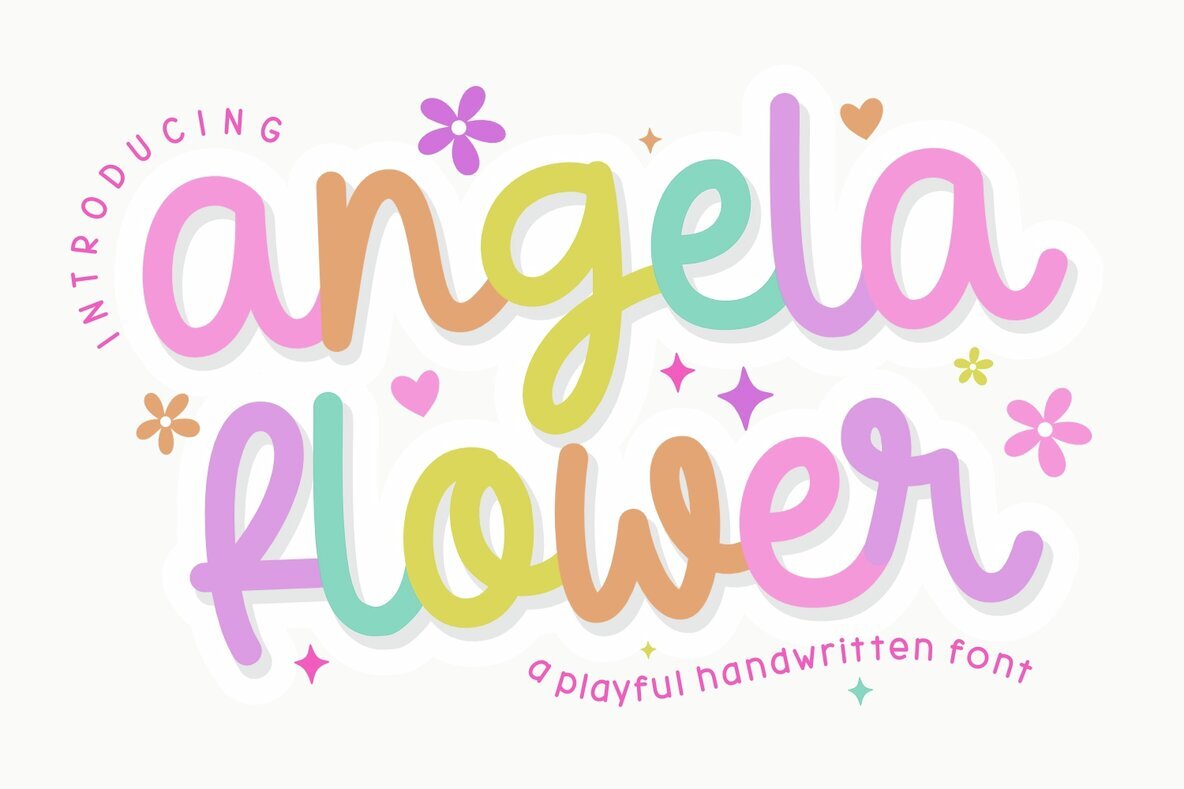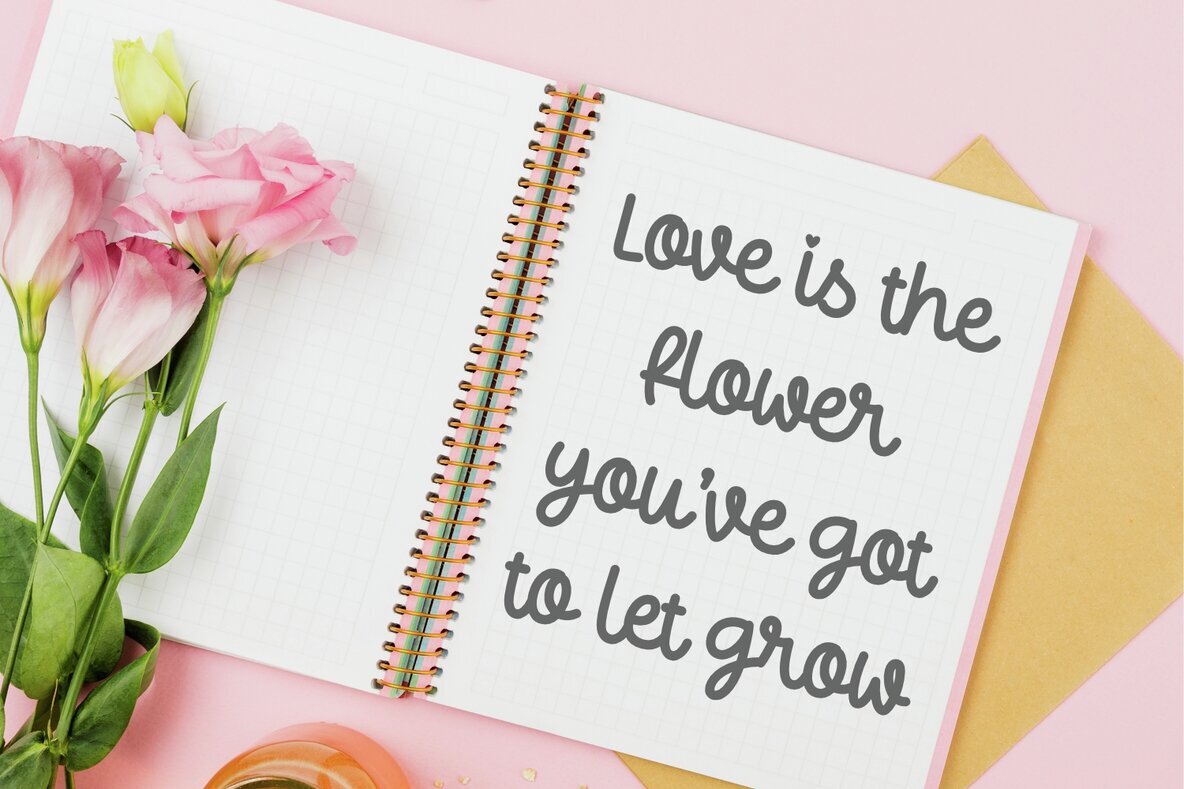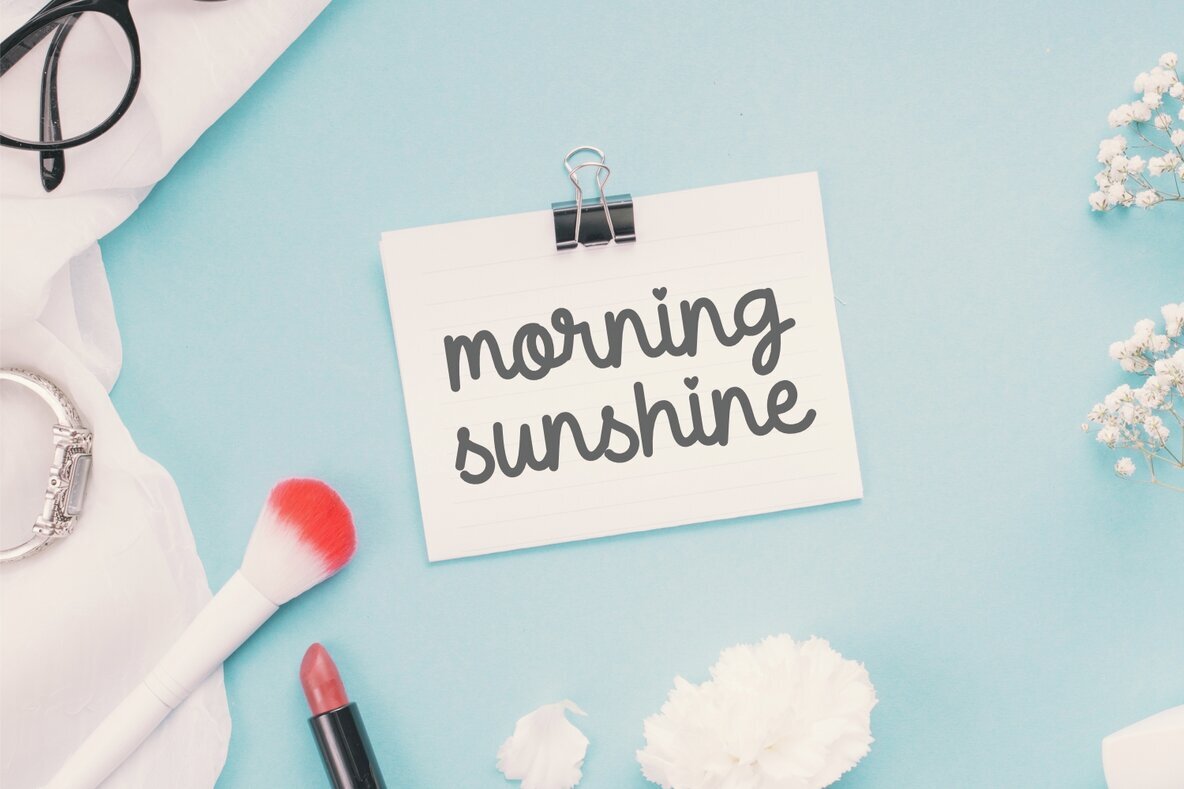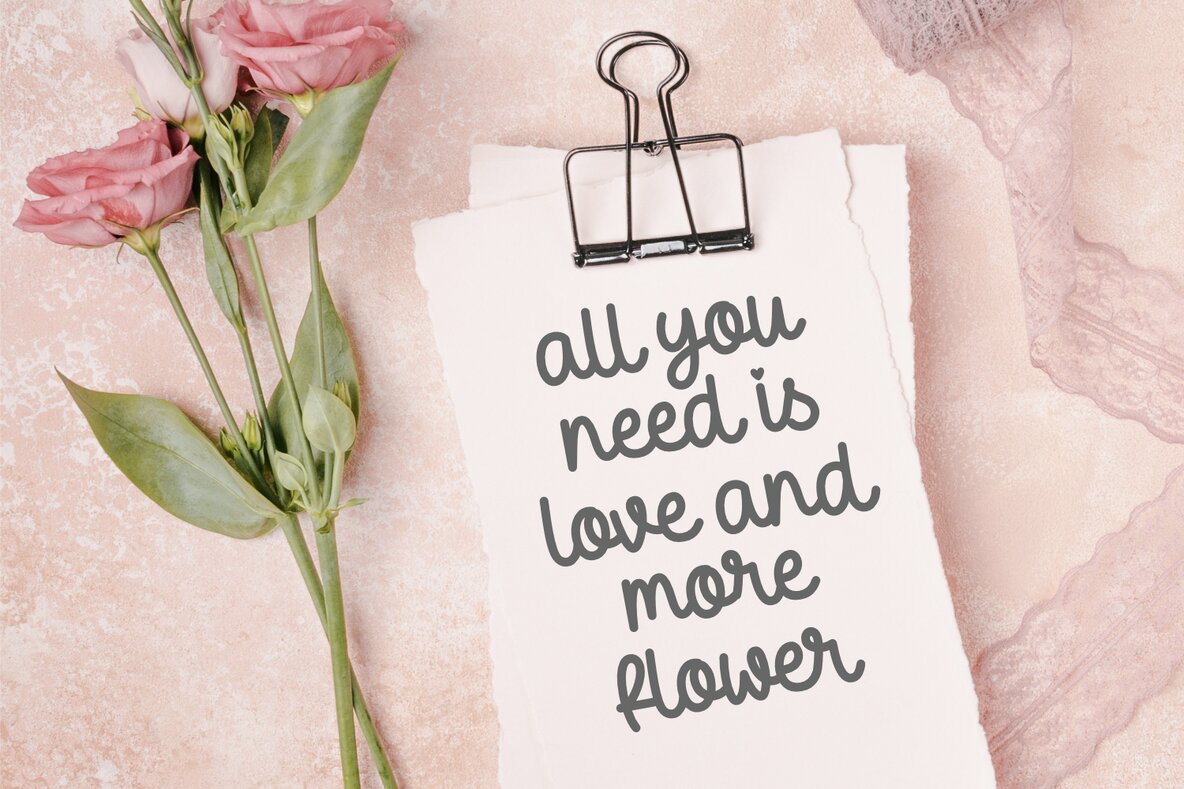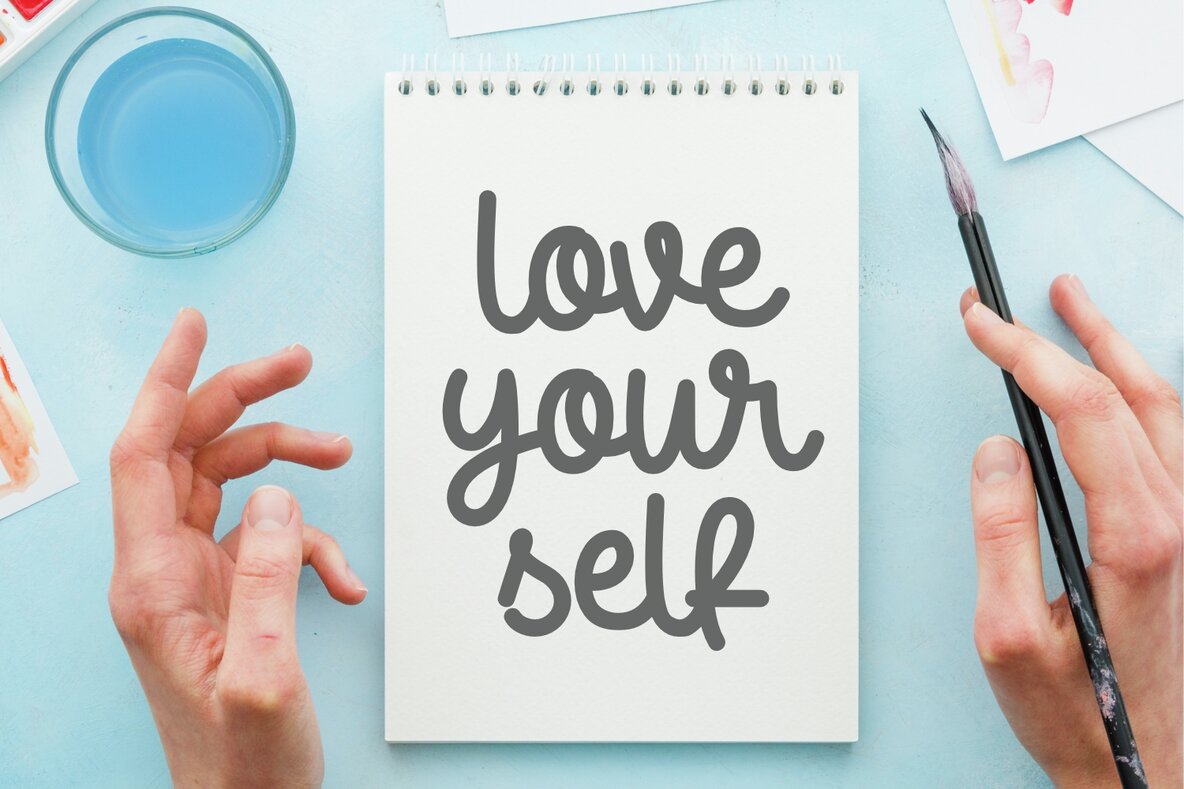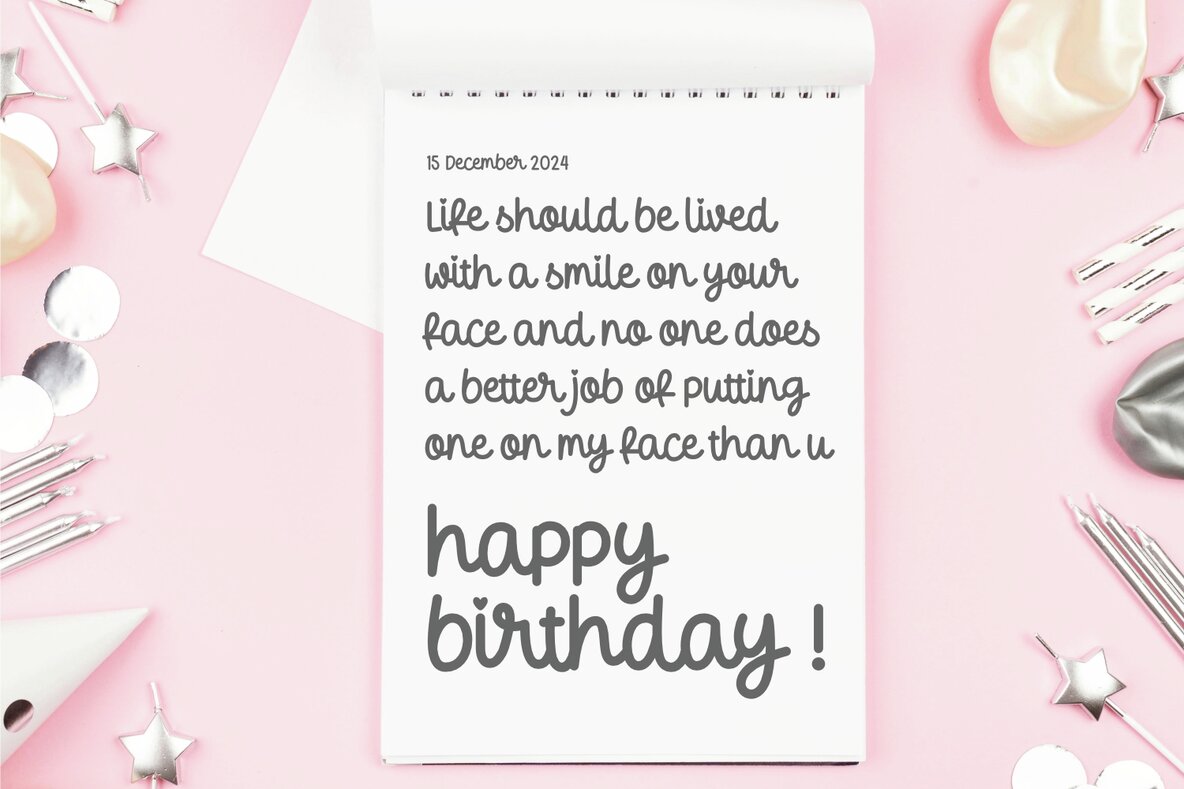
Angela Flower Font
Angela Flower
Angela Flower is a vibrant and spirited handcrafted font that brings a charming warmth to any design. Known for its lively cursive style, Angela Flower is ideally suited for logos, social media graphics, and artisan projects, providing a unique and imaginative touch to your work. Its distinctive design makes it a perfect choice for infusing your creations with an engaging spark.
This versatile font excels across various platforms, including Procreate, Cricut, and Canva, making it an excellent option for producing colorful, eye-catching typography. Whether you're working on a digital illustration or crafting a distinct logo, Angela Flower enriches your designs with its bold, yet playful aesthetic.